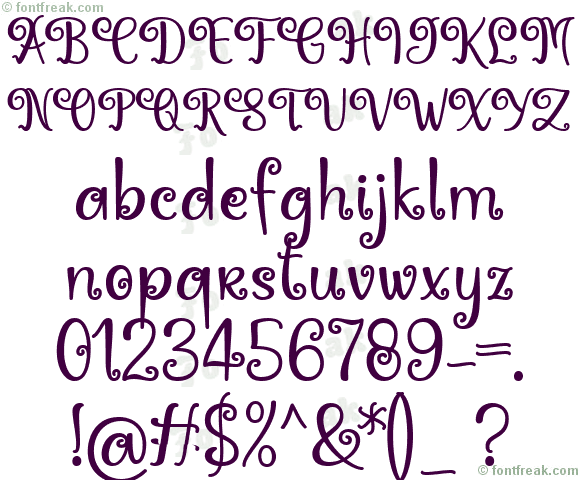
Hoty
The Hoty font, designed by Situjuh Nazara in 2018, is a captivating display typeface that exudes a playful, modern charm. This font features a unique handwritten style, characterized by its fluid strokes and whimsical curves. The stroke weight is consistent, providing a balanced appearance that is both inviting and legible. The moderate contrast between thick and thin strokes adds a delightful texture, while the generous spacing allows for easy readability, making it suitable for various applications.
Hoty is particularly well-suited for creative projects that require a touch of personality. Its lively aesthetic makes it an excellent choice for wedding invitations, where couples seek a font that conveys warmth and affection. Additionally, it can enhance the visual appeal of restaurant menus, giving them a friendly and approachable feel. The font's playful nature also makes it ideal for children's book covers, where an engaging look can captivate young readers. Moreover, it serves well in promotional materials for creative businesses, such as handmade crafts or boutique shops, allowing brand identity to shine through.